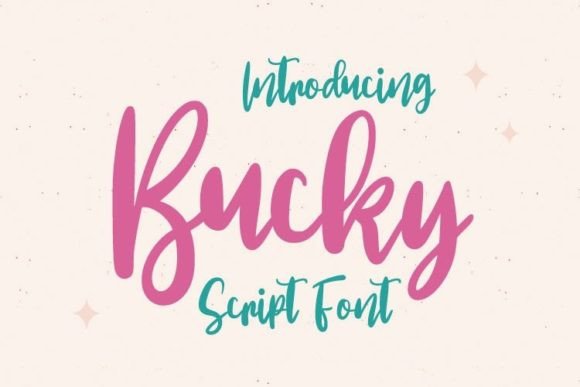
The Bucky Font: A Beautiful Script Font to Elevate Your Designs
I still remember the time I was working on a project for a client who wanted a fun and quirky design. I had a clear vision of what I wanted to create, but I was struggling to find the right font to bring it all together. That’s when I stumbled upon the Bucky font, and it completely transformed my design. In this article, I’ll share my experience with the Bucky font, its features, and how to make the most of it in your designs.
My Honest Review of Bucky Font
I’ve had the pleasure of working with the Bucky font for several projects, and here’s what I think:
- ✨ Unique and quirky characters: The Bucky font features fun and playful characters that add a touch of personality to any design.
- ✅ Highly versatile: Bucky looks great in a variety of design contexts, from digital graphics to print materials.
- ✅ Ease of use: The font is easy to read and works well in both headings and body text.
However, I did notice a few quirks:
- 🤔 Limited use of uppercase letters: While the font does have uppercase letters, they don’t always pair well with the lowercase letters. Use them sparingly for best results.
- ⚠️ Not suitable for very small text: The Bucky font can be a bit tricky to read in very small text sizes, so it’s best to use it for headlines or larger text.
The Story Behind Bucky Font
The Bucky font was designed by a team of creatives who wanted to create a font that would add a touch of fun and personality to any design. Inspired by the quirks and charm of handwritten text, Bucky is the perfect font for designers who want to add a bit of whimsy to their work.
| Font Name | Bucky Font |
| Author | pustudio |
| What type of designs is Bucky font best suited for? | Bucky font is perfect for designs that require a fun and quirky touch, such as invitations, posters, and social media graphics. |
| Is Bucky font easy to read? | Yes, Bucky font is generally easy to read, but it may not be suitable for very small text sizes. |